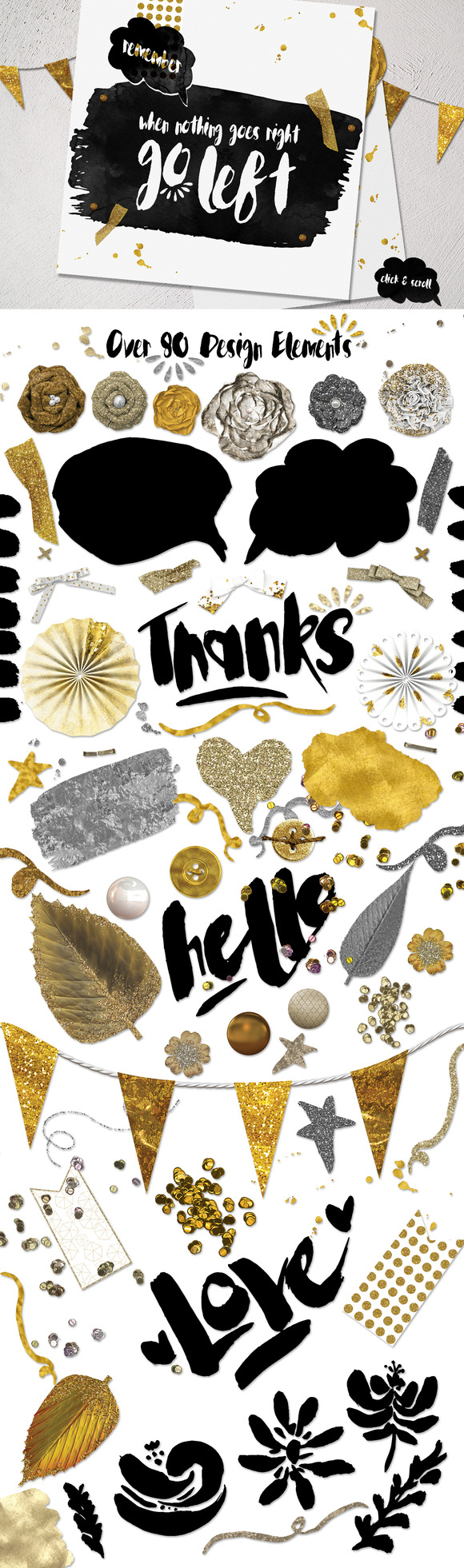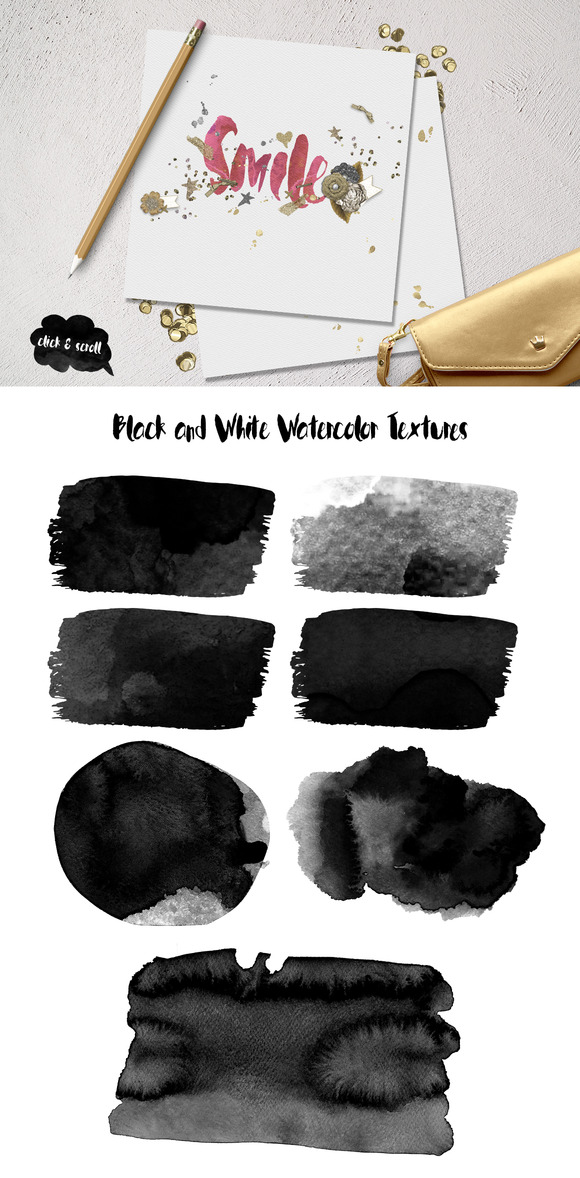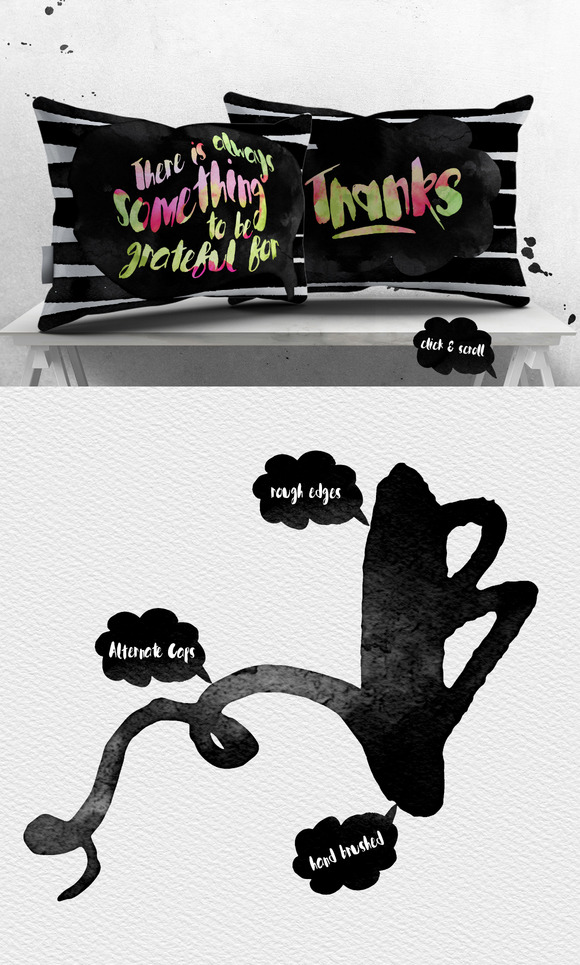
Wonderlicious Typeface plus Bonus
Introducing the New Wonderlicious typeface, with a sweet bonus pack of design elements that sparkle and shine, a few handpainted illustrations, and some black and grey watercolor textures!
A hand painted brush script with irregular baseline, with a rough natural brushed edge and some alternate Caps. OTF, TTF and Web Font.